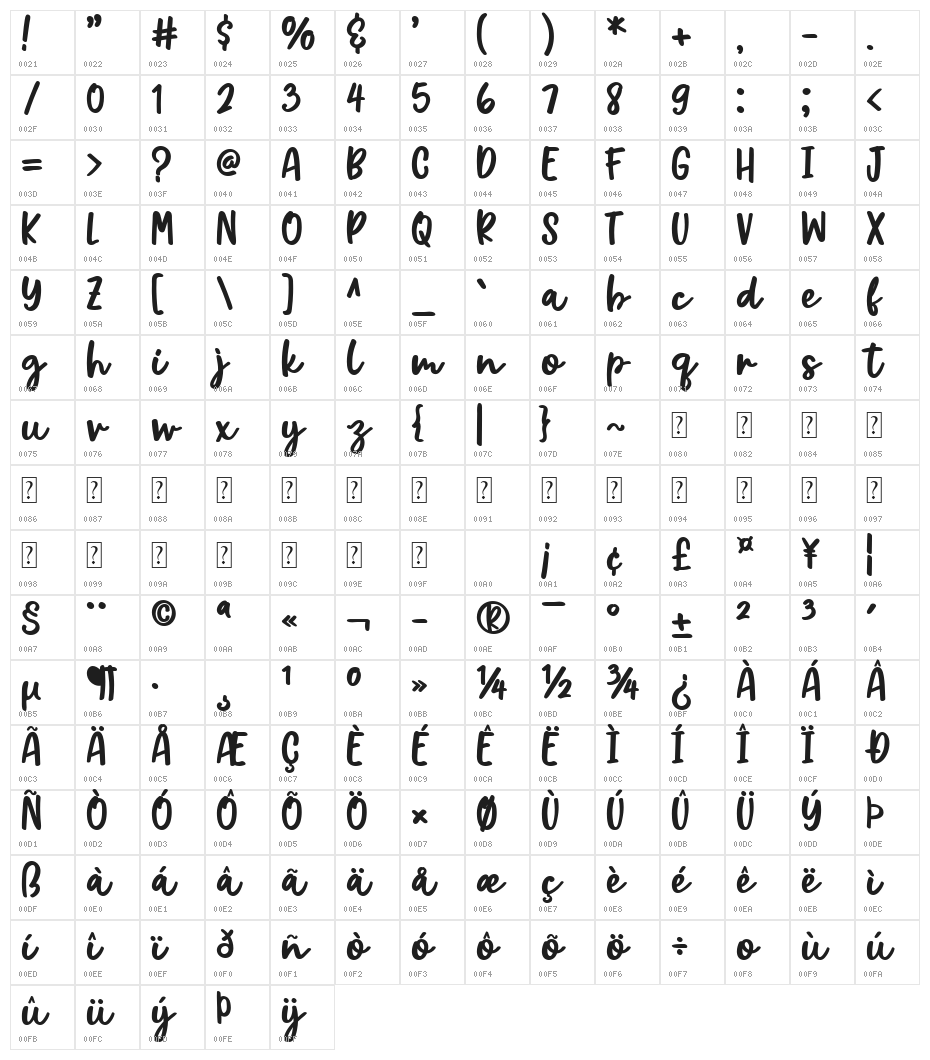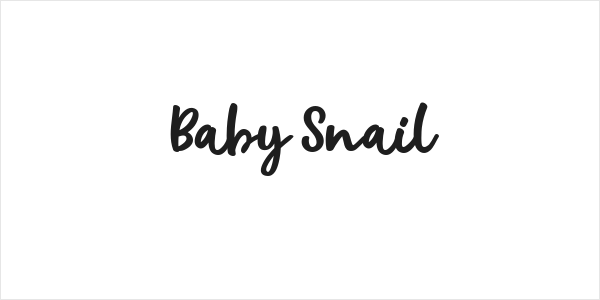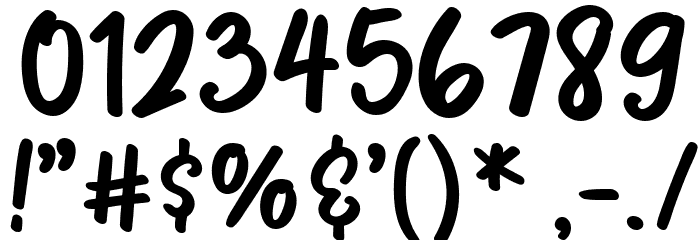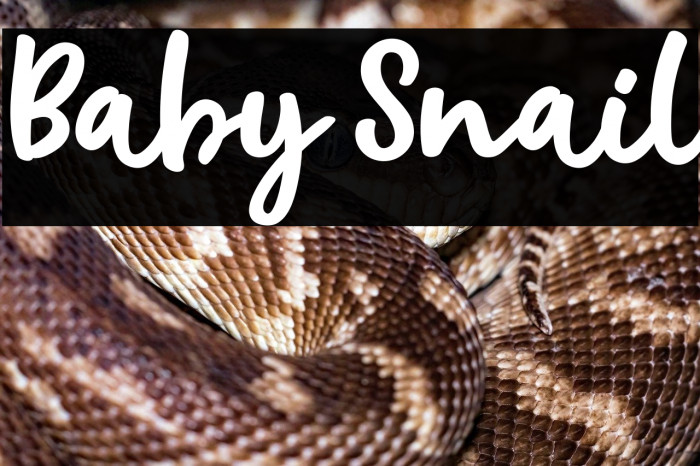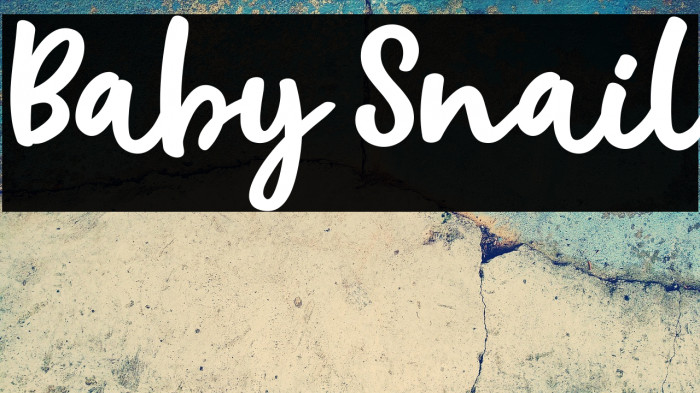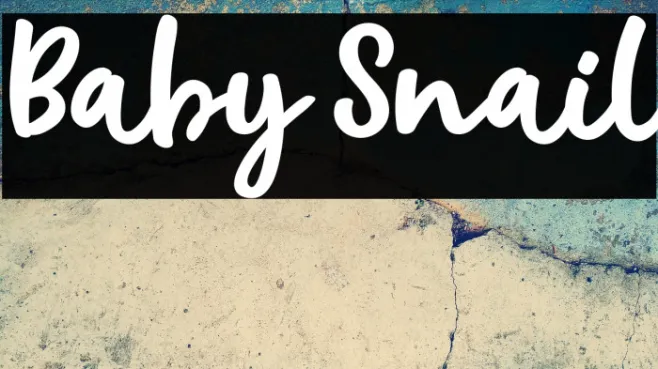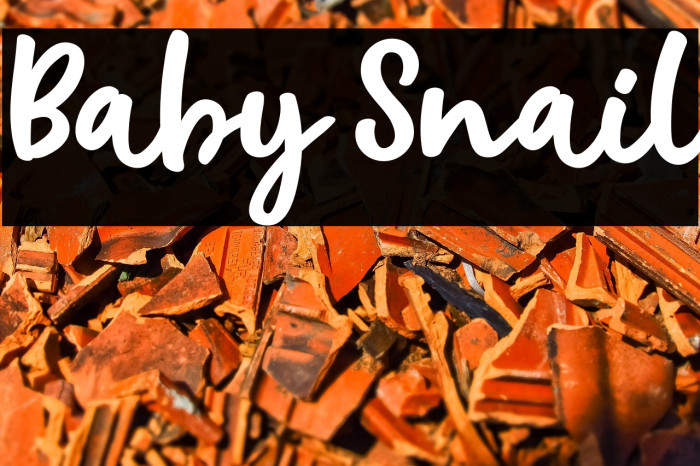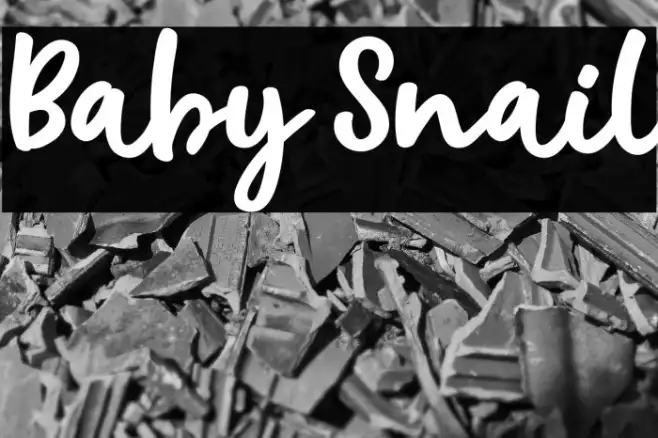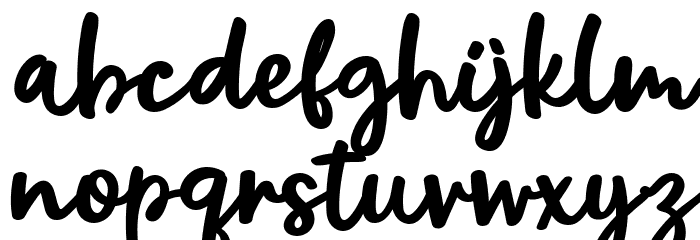
Baby Snail Font
Baby Snail Description
This playful and energetic font features bold, rounded letters with a handwritten style. The uppercase letters are robust and slightly condensed, while the lowercase letters maintain a consistent flow with smooth curves and loops. The numbers are equally bold, matching the overall style of the alphabet. Special characters are creatively designed to complement the font's lively appearance. The font's thick strokes and uniform weight make it highly legible, even at smaller sizes, while its whimsical nature adds a touch of fun and personality to any design.
| Proposed Projects | Ideal for children's books, playful branding, greeting cards, and social media graphics. |